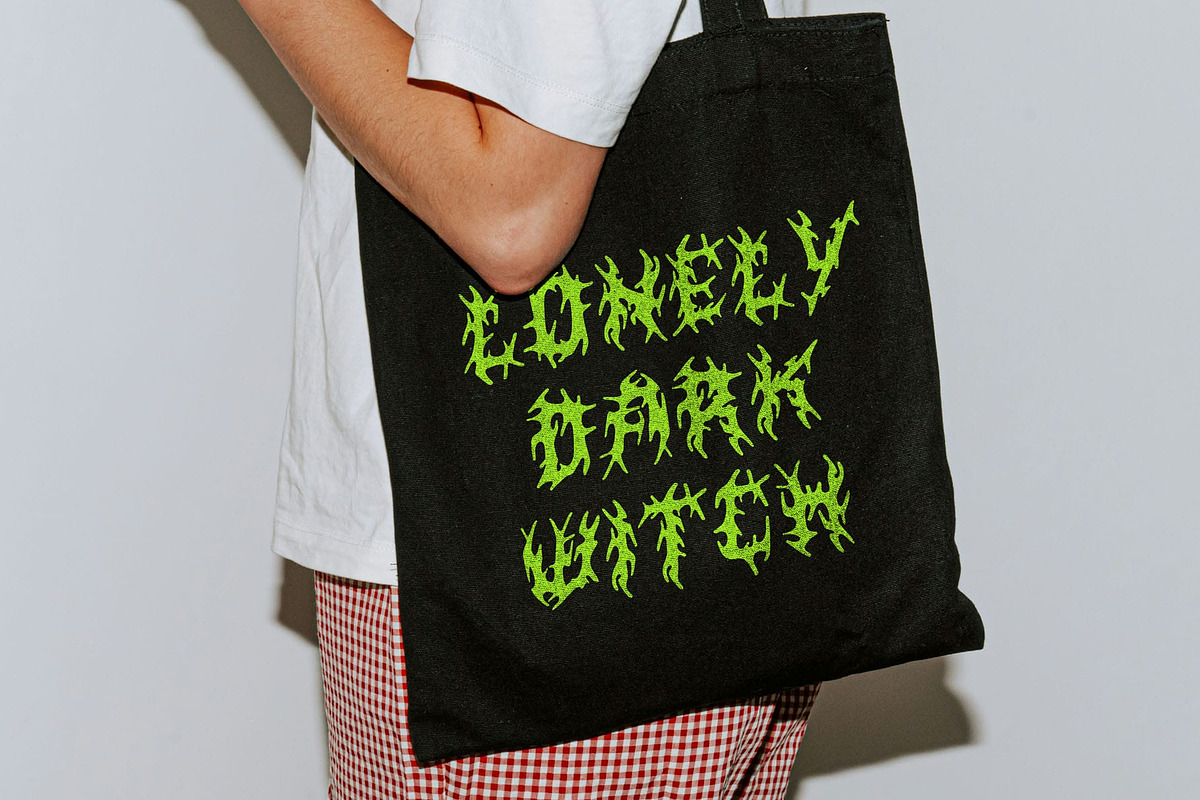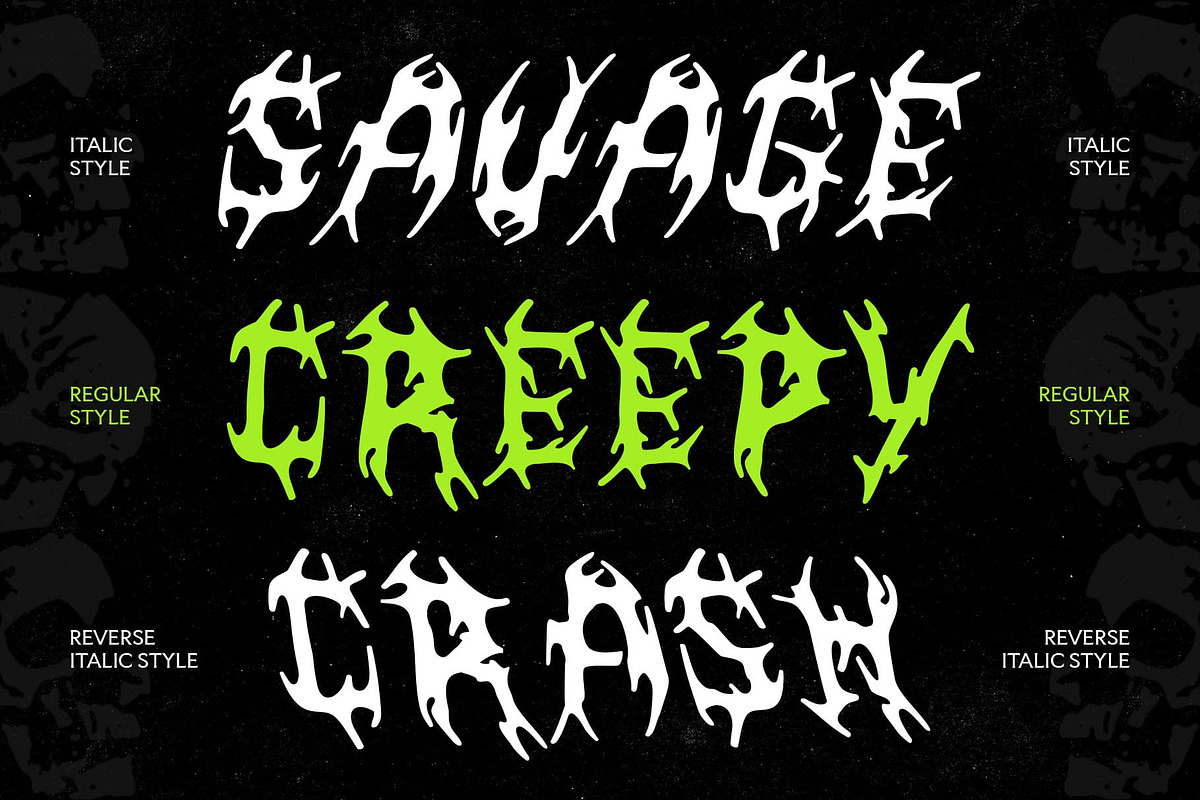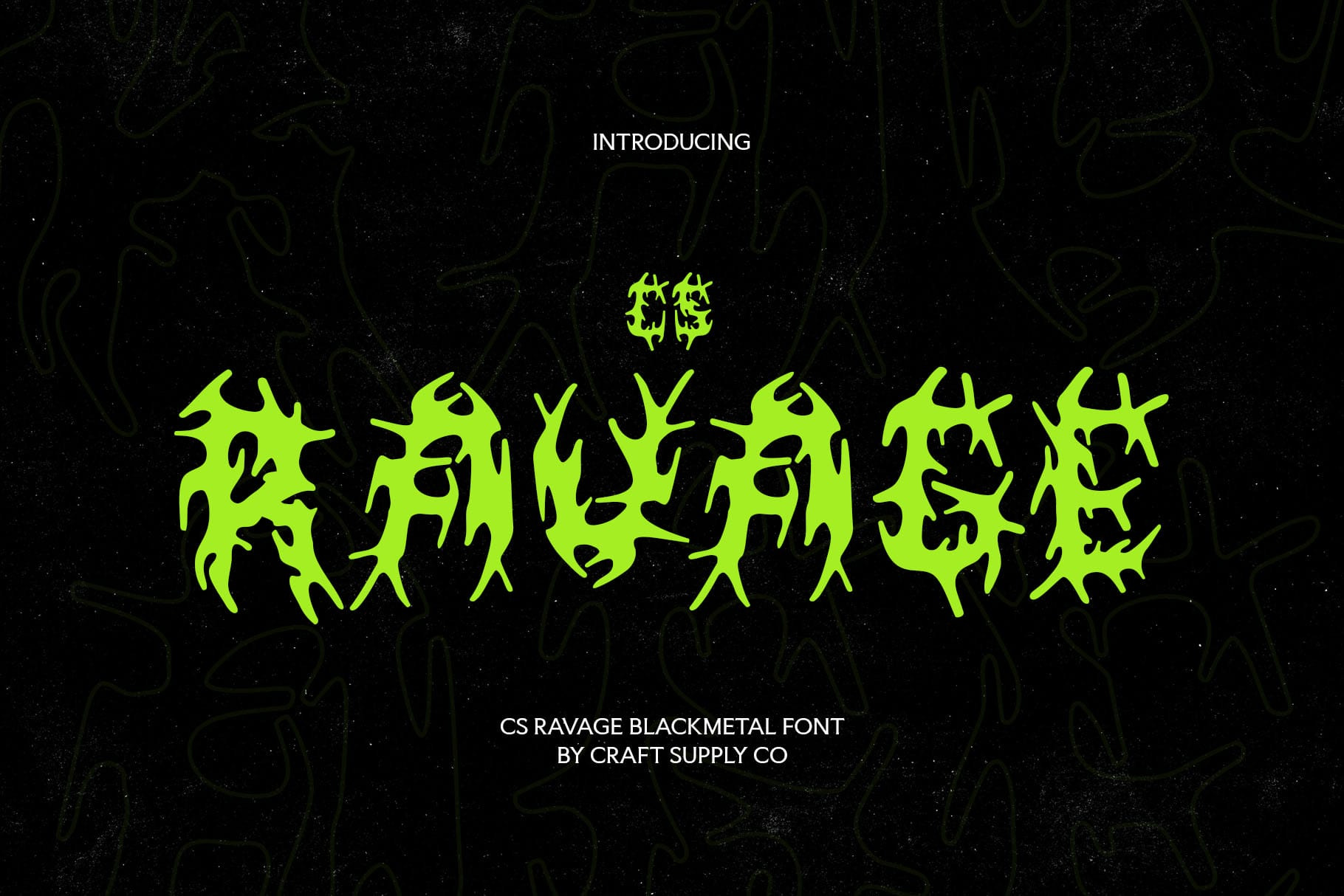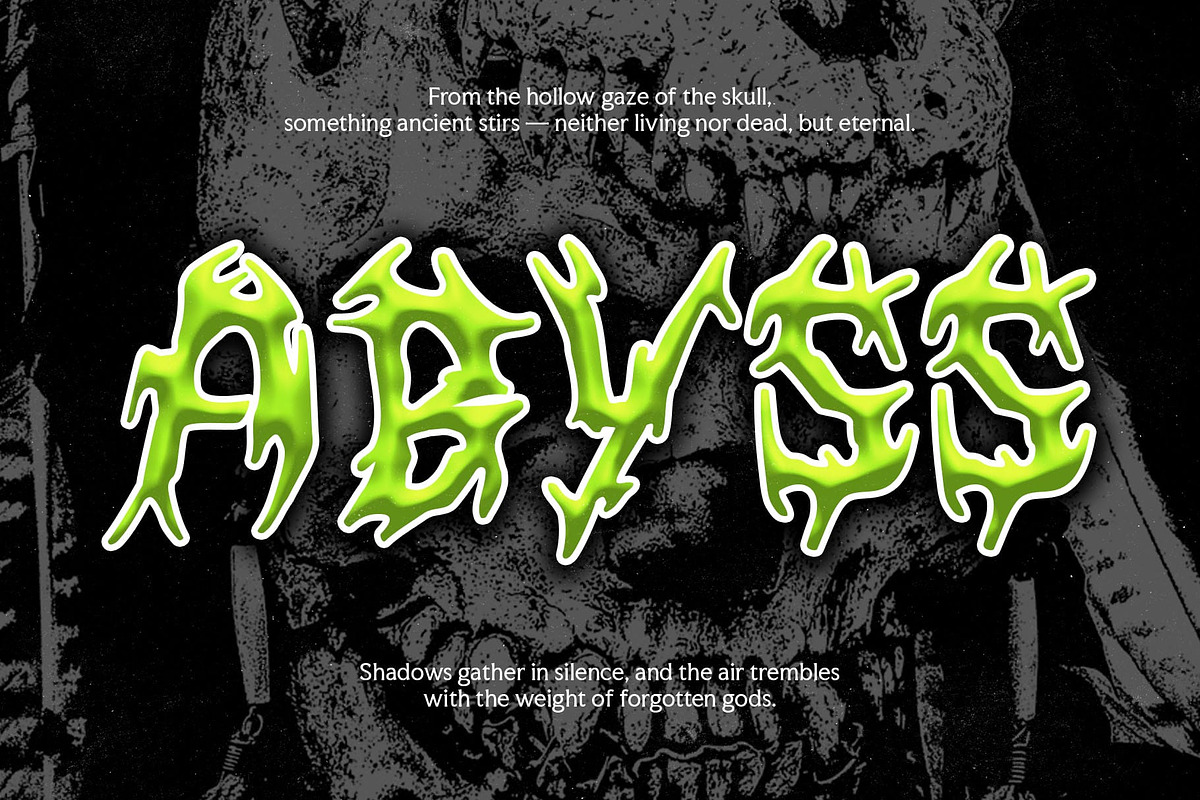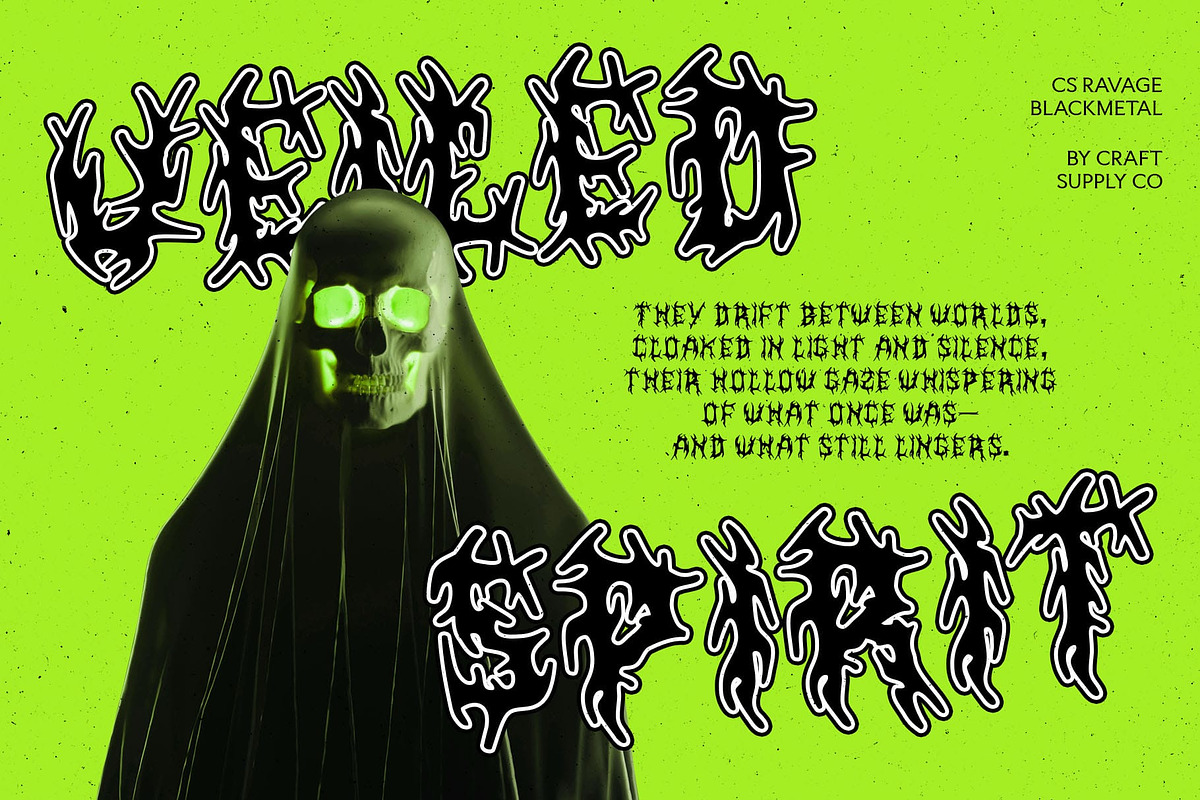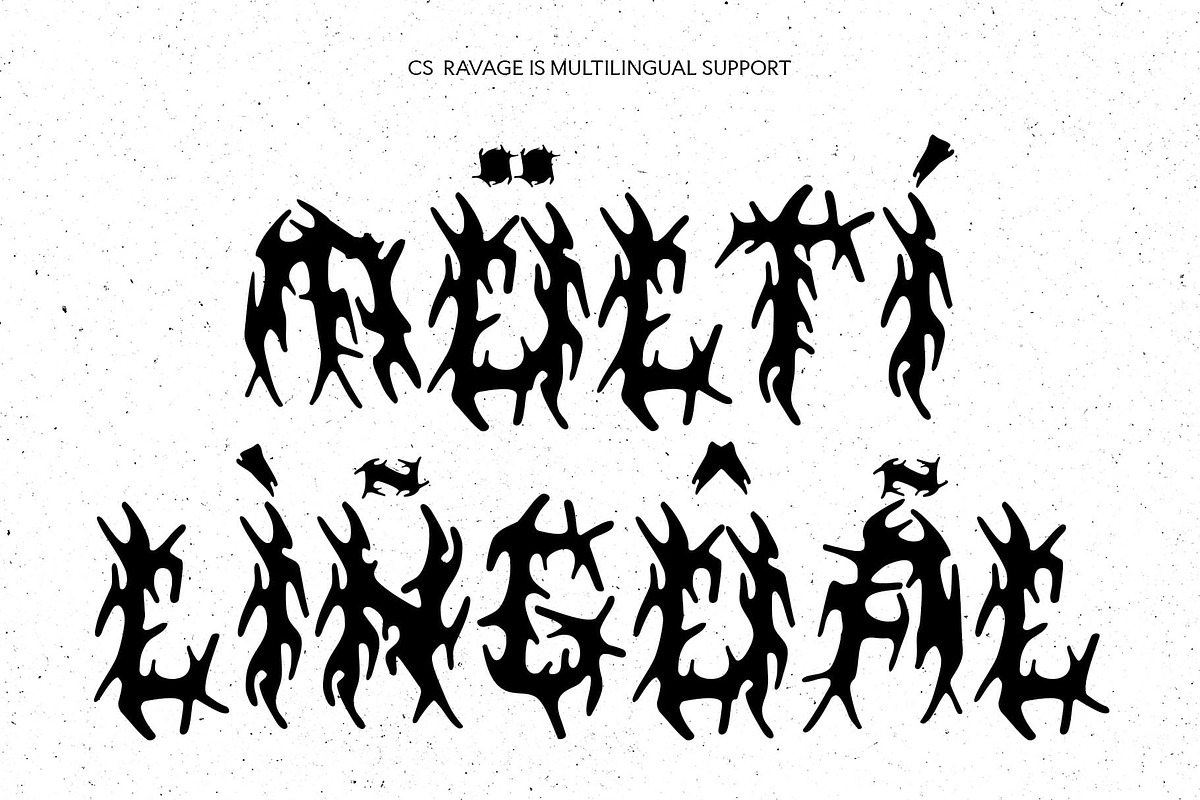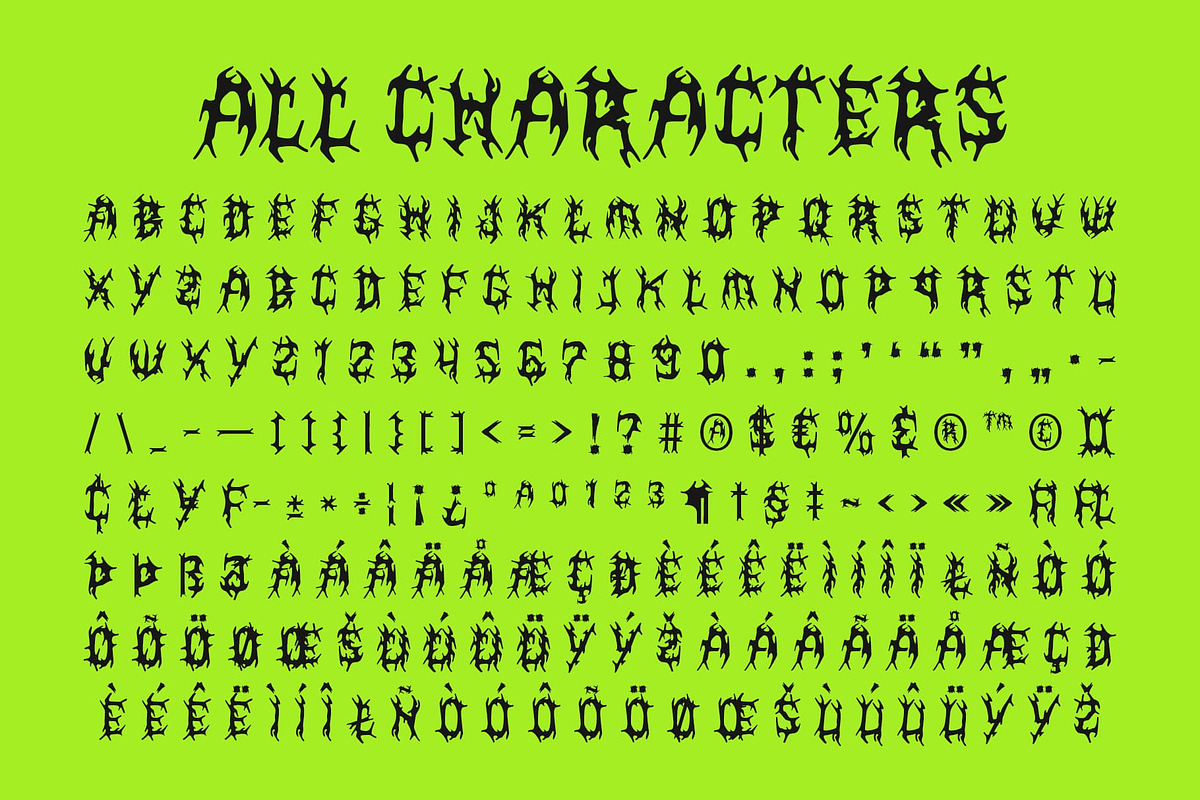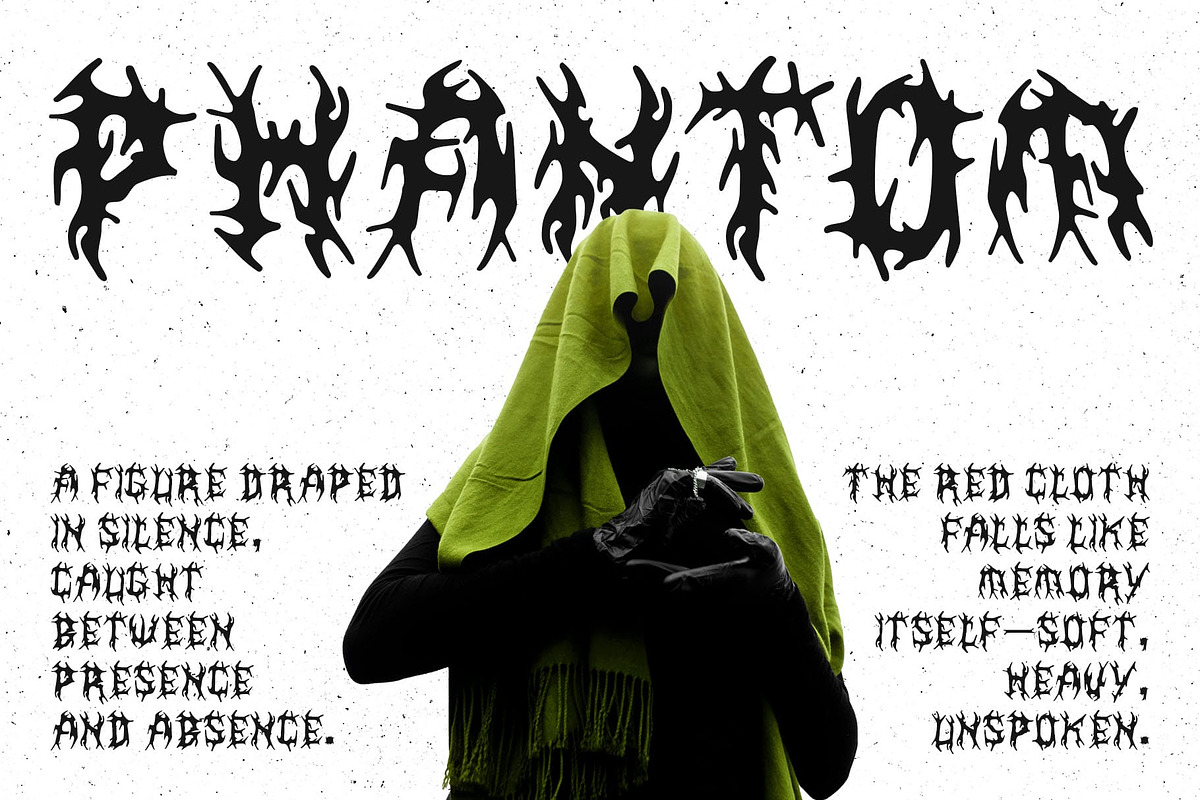
CS Ravage – Black Metal Font
CS Ravage – Extreme Energy with Dark Aggression
Black Metal Font with Fierce Personality This is a raw and aggressive black metal font built to channel pure intensity. Its jagged spikes and chaotic strokes create a visual storm of darkness and rebellion, making it a perfect reflection of the raw power behind extreme music.
Chaotic Forms with Visual Impact Each letter in this font is crafted with sharp, irregular edges that convey movement and aggression. The chaotic structure amplifies its untamed energy, delivering a sense of danger and dominance that captures attention instantly.
Dark Aesthetic with Uncompromising Style This font embodies the essence of black metal design dark, gritty, and unapologetically bold. Its heavy texture and distorted forms add a sense of raw authenticity, perfect for projects that aim to break boundaries.
Perfect for Band Logos, Posters, and Edgy Designs Whether for band logos, music posters, or underground projects, this font radiates intensity and defiance. Its jagged energy and dark character make it the ultimate choice for designs that demand to be loud, bold, and unforgettable.